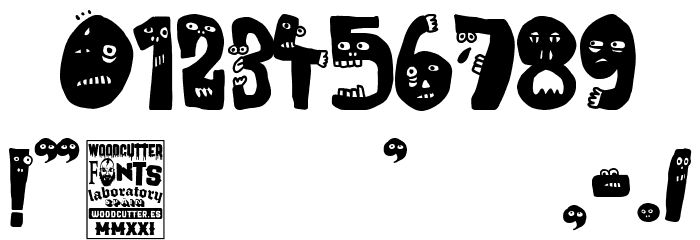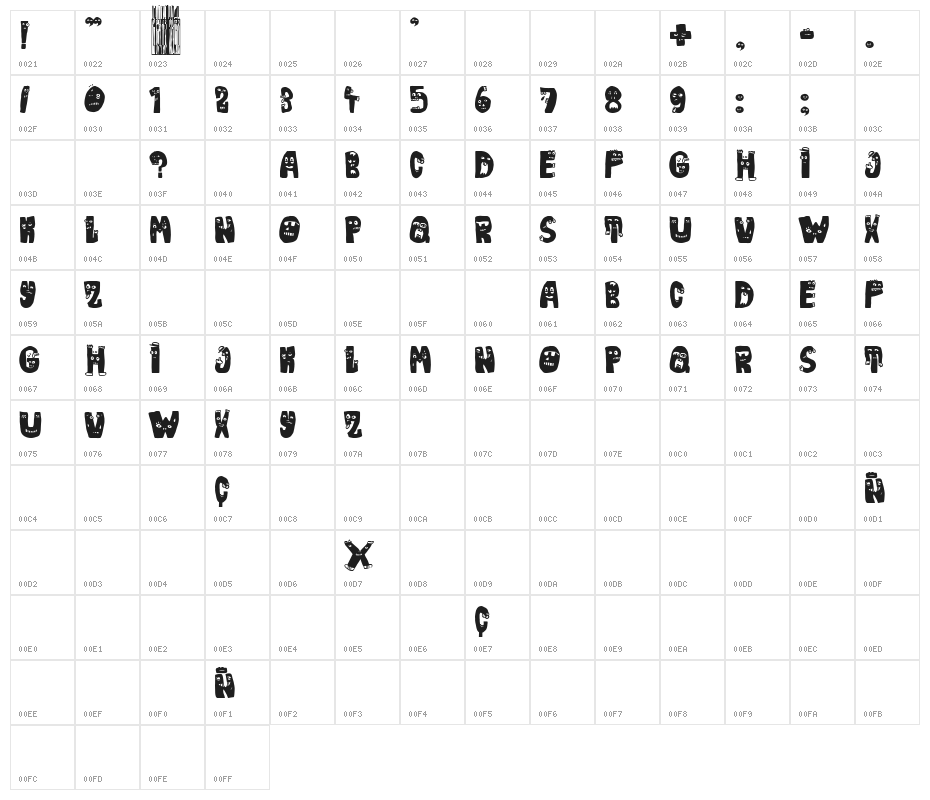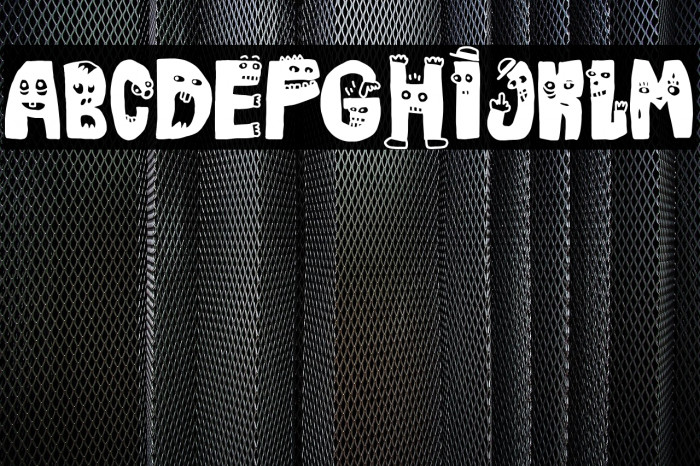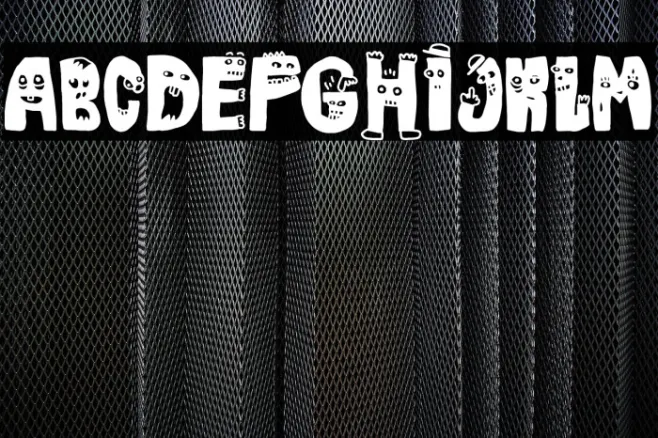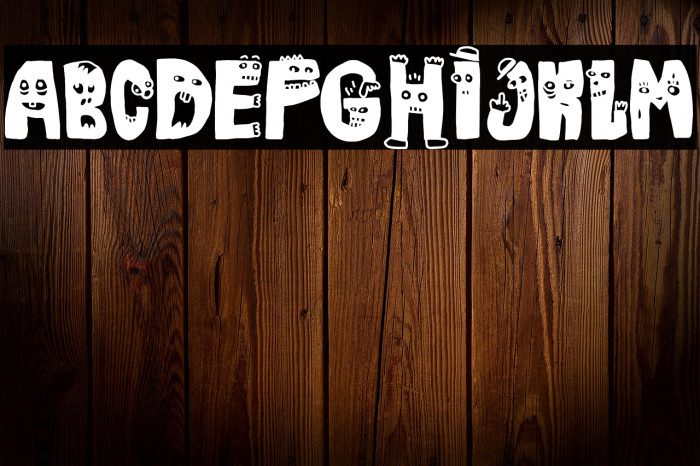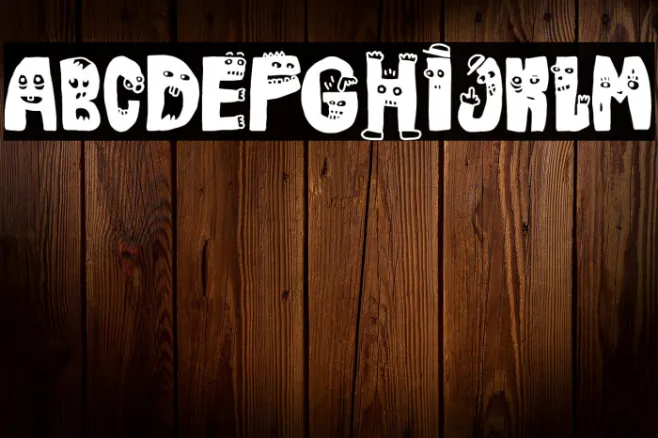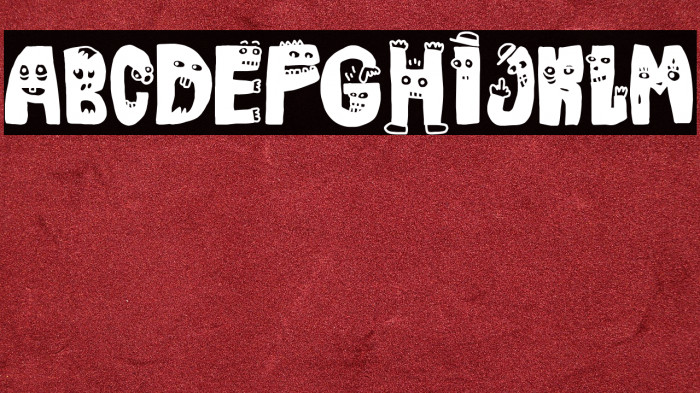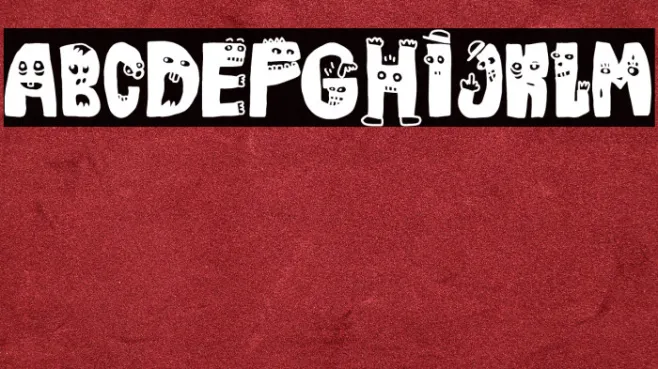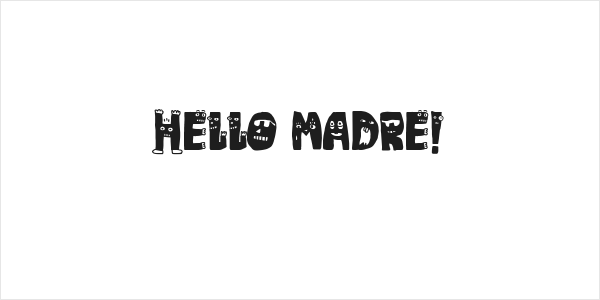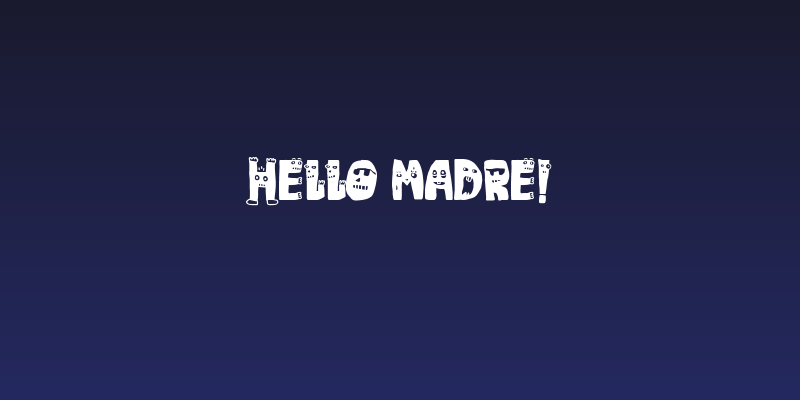
Hello Madre! Font
Hello Madre! Description
This playful and whimsical font features bold, chunky letters with quirky facial expressions and cartoon-like elements. Each character is uniquely designed with eyes, mouths, and other playful details that give it a lively and animated appearance. The font is highly decorative, making it ideal for projects that require a fun and engaging visual style. Its boldness ensures high visibility, while the unique character designs add a touch of humor and creativity. The font is perfect for children's materials, playful branding, or any project that aims to capture attention with a sense of fun.
Proposed ProjectsIdeal for children's books, playful branding, party invitations, and creative posters.